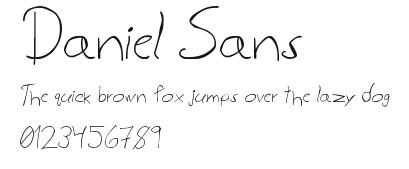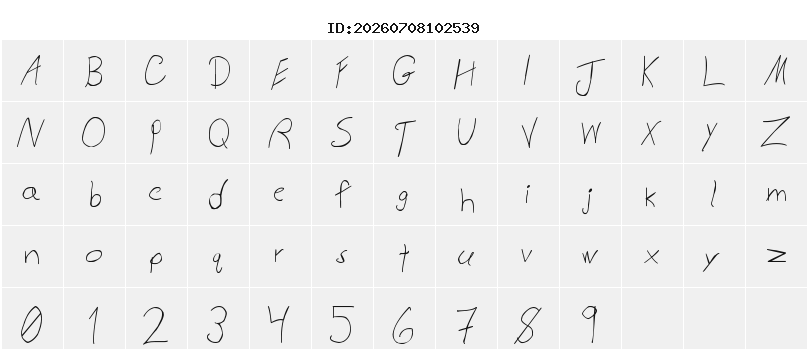
About Daniel Sans.ttf
Daniel Sans.ttf is a modern, elegant sans-serif font designed for ultimate readability and visual harmony. Perfect for branding, headlines, web design, and print materials.